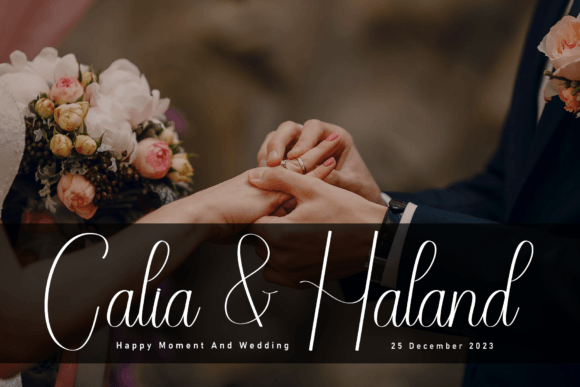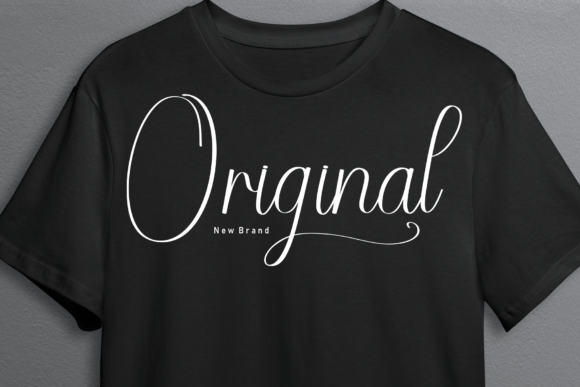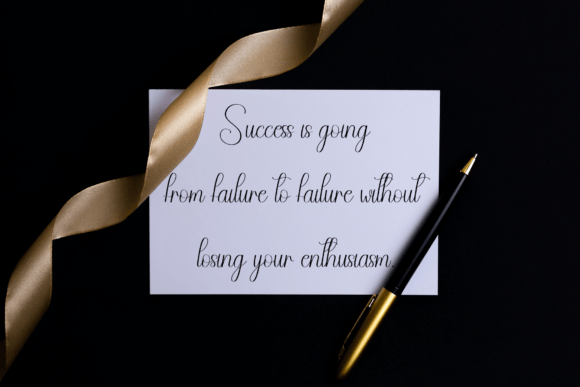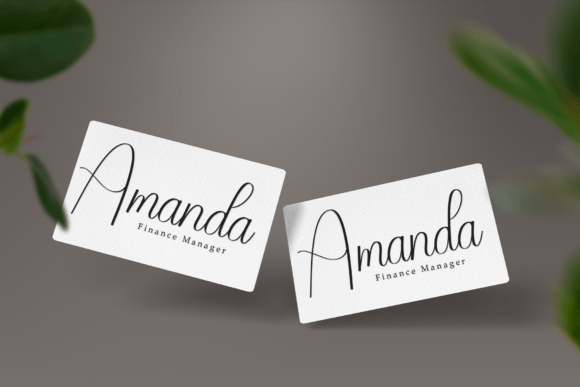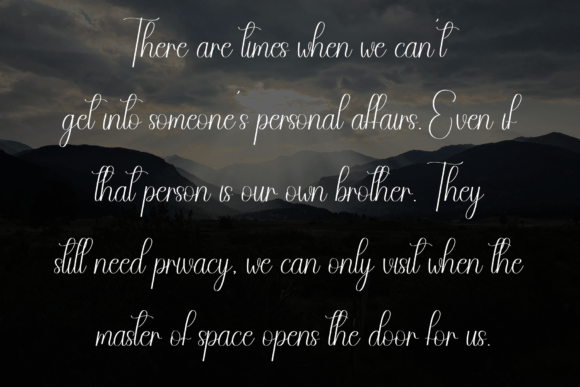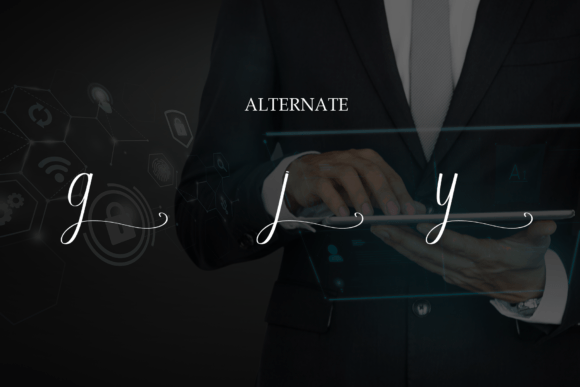
Introducing Digital: A Sweet and Friendly Handwritten Display Font
In the world of digital design, typography plays a crucial role in making your content stand out. A well-chosen font can elevate your design, convey the right tone, and capture the attention of your audience. If you’re looking for a font that adds a touch of whimsy and fun to your project, look no further than Digital – a sweet and friendly handwritten display font.
What Makes Digital Special?
Digital is a cute and fun font that’s ideal for writing wedding invitations, cards, or any other design that might need a playful touch. This font is perfect for designers and crafters who want to add a personal and humanizing element to their work. With Digital, you can create designs that are both visually appealing and engaging.
Key Features of Digital Font
- Handwritten Display Font: Digital is a handwritten display font that boasts a unique and charming character.
- Cute and Fun: This font is perfect for designs that require a playful and lighthearted touch.
- Ideal for Wedding Invitations and Cards: Digital is specifically designed for creating beautiful wedding invitations, cards, and other paper crafts.
- Easy to Read: Despite its playful nature, Digital remains easy to read, making it perfect for both digital and print designs.
Use Cases for Digital Font
Digital font is versatile and can be used in a variety of design projects, including:
- Wedding Invitations: Create beautiful and unique wedding invitations that set the tone for the big day.
- Greeting Cards: Add a personal touch to your greeting cards, making them extra special for birthdays, holidays, and other celebrations.
- Paper Crafts: Digital font is perfect for paper crafts, such as scrapbooking, journaling, and card making.
- Digital Designs: Use Digital font in your digital designs, such as social media graphics, blog posts, and email newsletters.
Tips for Using Digital Font
To get the most out of Digital font, here are some tips to keep in mind:
- Pair with Other Fonts: Experiment with pairing Digital font with other fonts to create a unique and visually appealing design.
- Use in Large Sizes: Digital font looks best in large sizes, so use it for headings, titles, and other prominent text.
- Experiment with Colors: Digital font comes alive with color, so don’t be afraid to experiment with different hues and shades.
In conclusion, Digital is a sweet and friendly handwritten display font that’s perfect for adding a touch of whimsy and fun to your designs. With its cute and playful character, Digital font is ideal for wedding invitations, cards, paper crafts, and digital designs. Whether you’re a designer or crafter, Digital font is sure to become a favorite in your toolkit.